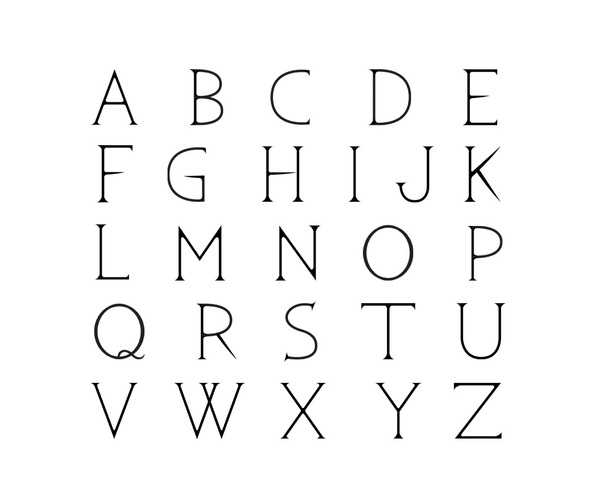
Octagonal typefaces | ||
Designer at FontStruct in 2008 of the blocky typefaces Fifteen Rounded, no15a and 15Square. [Google] [More] ⦿ | |
Typefaces from 2021: Aretha Bridge (a decorative serif), Aerobic (a decorative serif), Aristotle, Akashic, Celebrate (a display serif), Chaman (decorative), Conical Condensed, Coxxon (a logo font), Character with Text (textured), Digital Geometric, Gimbal Extended, Gramling, Hamachi (a decorative serif), Matiott (a display serif), Mclassic (stylish thin roman caps), Newton Howard, Ostrich Habitat (a display serif), Rothko Sans, Space (a futuristic speed font), Strarat (perhaps a horror font), String Beads, The Shouting, The Solstice, Theories (a tall modern sans), Travel (a modern display sans), Walting, Wind Creek (wind emulation), Cake Circle, Aremat (a rounded monolinear sans, perhaps a neon font), Urial, Gangitem (a ligature-rich serif), Roblox (futuristic), Selena Marin (a multi-width font), Wolf (octagonal), Amidala, Qaitan (a ligature-themed display serif), Raugi, Excellent (blackletter), Abington (sans), Aweber (an avant-garde sans), The Bangles (a vintage sans), Ohio (an all caps monolinear geometric sans), Mailyn, Celattin (a hipster sans), Landing, Soothing, Tommy. [Google] [More] ⦿ | |
24Design Studio
Typefaces from 2019: Madali, Lumiera, Mantra, American Label, Kida Main, Besty (font duo), Mellonia, Refaline Script, Eliotica, Chance, Lemonace (font duo), Reyonha Script, Mideltone, Prodush, Trushme Script, Wakeup, Sugarly, Rushely Script (retro signage script), Cromana, Arigatho (brush). Typefaces from 2020: Mideltone (textured), Maghnoyha (a monoline script), Wild Brush, Hotelio (a monoline sans), Roadkey Line (an inline all caps typeface), Sercerez (brush font), Collectials, Avekins, Cread, Gardenia, Glowria, Jenifa, Larrisan (a decorative serif), Light City, Millicious, Mindate, Mordova, Murner, Nobstars, Pittania, Rockside. Typefaces from 2021: Artmosfear, American Label (a Victorian label font), Asiatic (an inky script), Ballocs, Benhard (a vintage display font), Biorka Serif, Brith Brish, Chance (a squarish sans), Clowsh Esport, Catherina Script, Confillia (a clean sans), Focger Serif, Ganirus, Grimson (a signage script), Madtone, Monstario Serif (in the plump serif genre), Muve Serif (incised caps), Pancrack (a font for children), Redsans, Subaraya Retro Script. [Google] [MyFonts] [More] ⦿ |
24exp
| 24exp was the online portfolio of Buckinghamshire, UK-based freelance designer and art director Chris Henley. Some time alter, he set up Good and Brave in Milton Keynes, UK. Creator of the rounded octagonal typeface GAS (2012) and the 2d typeface Build Me Up and Knock Me Down (2013). Behance link. [Google] [More] ⦿ |
4RF Font (or: 4RM, or: Bantai)
| Ohman Ohman, or Arief Rochman, is an Indonesian type designer. His typefaces from 2020: the six-style sans simply called Bond (it was released a few weeks after Sean Connery died, so perhaps that explains the nomenclature) and the 18-style sans family Sanjeng. Typefaces from 2021: Cocomber (a stocky bold sans for big print), Terminator, Shasa (an 8-style serif), Didi (an 8-style sans), Mastral (an almost Peignotian sans), Fsfont (an almost Peignotian sans family), Agressiva (a bold rounded sans with exaggerated ink traps), Cocomate (a wide plump retro serif with elephant feet), Domina (a very wide sans), Blanknot (a wide all caps sans), Big Banks (a wide bold elliptical sans), Blanczo (a wide modular sans), Paradiz (an ultra-condensed all caps sans), Potato Sans (playful caps), Brink (all caps, techno), Speedy (a speed sans), Kenta, Aish, Avalons (a 12-style monolinear sans). Typefaces from 2022: Electroz (mechanical and octagonal), Arcens (a wide geometric sans), Monk (a wide poster sans), Beats (a sturdy all caps sans). [Google] [MyFonts] [More] ⦿ |
A2 Type
At ATypI 2013 in Amsterdam, he spoke about New Transport. Winner of the type design prize at the Tokyo Type Directors Club TDC 2019, with Matt Willey, for the New York Times Magazine Olympic font. [Google] [MyFonts] [More] ⦿ |
Graphic design student at the University of Creative Arts, Epsom, UK. Worthing, UK-based creator of the sans family Static (2010). MyFonts link to his foundry and to his persona. He designed the monoline octagonal typeface Exogenetic (2010). Behance link. MyFonts link. Klingspor link. [Google] [MyFonts] [More] ⦿ | |
Abas Creative
| Or Muhammad Farhan Sholeh Ramadhika. Jakarta, Indonesia-based designer of the script typefaces Done Perfectly (2019), Bad Hunters (brush style), Yeager Gang (2019), Veltloved Babyatta Script (2019: monoline), Natasha Amelia (2019), Densha (2019), Sayangable (2019) and Russland (2019). In 2020, he designed Bacalisties (script), Glittery (script), Galligra (a calligraphic brush), Sportviper (an octagonal varsity font), Aishiteiru Lover (script), Rellyan Charlotte (script), Aesthete (script), Herland (script), Hi Mellati (script), Fritlany (script), Rossatelly (script), Hessthicc (a dry brush script), Rock Bottom (script), Lesistar, Mastherikur, My Kids Handwritten, Done Perfectly, Hathem Bosteem, Violleva (script), Rybeth (script), Bad Hunter Brush, Veltloved, Korean Looks (Hangul emulation), Pixeboy. Fontdaily link. [Google] [More] ⦿ |
Lebanese designer who created Beantown (2004, an athletic lettering font), Staubach (2004, an athletic lettering typeface based on the lettering of the Dallas Cowboys), Wagner Modern (2011), Kroftsmann (2004, on octagonal face), Kavelry (2004, based on the Kemper Insurance logo), 4th and inches (2008, rounded octagonal; based on the proprietary font used by Russell Athletic, makers of sports apparel as used by Georgia Tech BKB, Washington State, Alabama State, Tennessee State, Mississippi Valley State, and many others in college football), and PopWarner (2004, a Bank Gothic lookalike), Wagner Zip Change (grotesque), Richardson Fancy Block. Creator of some free soccer team lettering alphabets in 2010: Louisville, Puff Script, Red Raiders, Richardson Fancy Block, Wagner Zip-Change (based on grotesque signage letters), ACMilan2009, ASRoma, ChampionsLeague, England2007, MLSUniform, RealMadrid2009. About his GeauxXPDF typeface (2010), he writes: I had extracted a nearly complete set on this one a few years back, except for J and Z which I created on my own. As best I can tell, it only exists as an upper case font without most punctuation, so I created that too to make it more useable. I don't know how much LSU [Louisiana State University] paid for this design, but to me it always looked like something that Larabie or Iconian would have given away. He also extracted HDRadioAlphabet from a rounded Arial typeface he found on HD radio. His UScoreRGK (2012) is a blocky angular font used on-screen by Fox Sports. LCD Display (2012) is a 28-segment LED font. UA Terrafont (2012) was based upon the vector art in this PDF file. In 2013, he published the athletic lettering family High School USA and the octagonal typeface UA Cadet. See also here. Dafont link. Fontspace link. Another URL. [Google] [More] ⦿ | |
Abdul Malik Wisnu
French graphic designer Abed Loutfi created the octagonal typeface Antec (2011), the honeycomb-inspired Mecanorganic (2011) and the piano key typeface Muse (2011). [Google] [More] ⦿ | |
During her studies at the University for the Creative Arts Farnham, UK, Abi Fuller designed the pattern-filled octagonal typeface Tribal (2014). [Google] [More] ⦿ | |
Abjad
In 2020, he co-designed Palsam Pro (Abjad) with Alja Herlah. This rounded sans typeface covers Latin and Arabic. Regarding Palsam Arabic, they write: The main highlight for Palsam was the cursive companion. For the first time, the calligraphic Ijaza style was used as a model for designing the Arabic cursive. The Ijaza is a hyper combination of Naskh and Thuluth, which makes it perfect to be a companion for the upright Naskh. Typefaces from 2021: Manchette Fine (an Arabic typeface), Manchette (an Arabic headline typeface that was inspired by the hand-written Naskh newspaper headlines during the 1960s and 1970s). Behance link. Klingspor link. Behance link for Abjad. [Google] [MyFonts] [More] ⦿ |
Abneurone Typografix (or: Abneurone Trauma Types, or: Neurone Error, or: Abneurone Fluid Types, or: Cirque Traumaccord)
Their first commercial fonts are ATT49 Fanfare, ATT48 Thrax, ATT47 Candies, ATT46 Exlixir, ATT45 Transfix, ATT44 X-Cute, ATT43 Small Proteus, ATT42 Childhook, ATT41 Arcane, ATT40 Lysergic4a, ATT39 Liquor, ATT38 Once Upon A Damned, ATT37 Innocence, ATT36 Kidding, ATT35 Bestiaire (2011), ATT34 Lysergic 2a (2011), ATT33 Koan (2011), ATT32 Faun Call (2011), ATT31 Paraphilia (2011), ATT30 Lysergic 1b (2011), ATT29 Mad Hatter (2011), ATT28 Minimori (2011), ATT27 Tripton (2011), ATT26 Lysrergic3a (2011), ATT25 Multicoloured Rythm (2011), ATT24 Swallow (2011), ATT23 Artlien (2011), ATT22 Dopamine (2011), ATT21 ABTOY (2011), ATT20 Rankle (2011), ATT19 Ink Lust (2011), ATT18 Overabundance (2011), ATT17 Ink Circus (2011), ATT16 The Orgians (2011), ATT15 For Whom The Bell Tolls (2011), ATT10 Stereo (2011), ATT11 Heterodoxa (2011), ATT12 Psilocybine (2011), ATT13 Sync (2011), ATT14 Prehisto (2011), ATT8 Human Decay (2011), ATT9 Eroded Eclosion (2011), AT4 Parallax (2011), ATT7 Medieval Sweet Shop (2011), ATT6 Detected Future (2011), ATT5 Hard Sync (2011), ATT4 Chalice (2011), ATT3 Outer Christ (2011), ATT2 Macpanic (2011), ATT1 Nimal Nimoy (2011), AT54 Intermezzo (2011), AT26 Metamorph Candies (2011), AT29 Dystrogonyx (2011), AG2 Placenta (2011), AT17 Farandole (2011), AT27 Innocence (2011), AT3 Nuclear Project (2011), AT38 Nanogonyx (2011), AT49 Neuromicr (2011), AT16 Faun Call (2011), AG1 Neuroticons (2011), AT55 Neo Geo (2011), AT36 Mad Hatter (2011), AT51 Pharmaceutic (2011) and AT5 Childhook (2011). The FontStruct production in 2011: 00dot 5 TRANSFIX, 00dot 15 DYSTROPHIE POLYGONALE, 00dot 20 CURSED, 00dot 13 PARALLAX, 00dot 12 NUCLEAR TARGET, 00dot_7_nimal_nimoy, 00dot 17 SYNDROME F.K., 00dot 9 NEW TO, 00dot 6 DECLINE AND CODE, 00dot 3 ROBOX, 00dot 2 MINIDECO, 0dot 26 INKSECTS, 00dot 32 STEREO, 00dot 10 SMART PLAYGROUND, 00dot 33 FUTURE NOW, 00dot 23 BLING STREET, 00dot 4 TOXINE, 00dot 31 FAUN CALL, 00dot 19 ELIXIR, 00dot 30 DWARF LOGIC, 00dot 8 THRAX, 00dot 14 A NEW FORM OF BEAUTY, 00dot 22 HETERODOXA, 00dot 27 KIDDING, 00dot 21 INNOCENCE, 00dot 34 PICTORIAL ABUSE, 00ne Stretched Empty Cow (2011, a piano key stencil face), 00ne Empty Cow (2011), 00ne Medication (2011), 00ne Pills, 00ne Minipills, 00ne Stency, 00ne Neurelm, 000tag6 LYSERGIC, 000tag4 ROBOX, 000tag NUCLEAR WARFARE, 00ne dat / dot, 00ne Bat Kidding (+Stencil, +Stencil Quadrillé), 00ne Stencirc, 00ne Neurocirc Neue Deco, 00ne Neurocirc, 00ne Neurologo, 00ne Nutech, 00ne Nutech Black, 00ne Top Pix (+Clean), 00ne Not So Atroce Pixels (+Black), 00ne Videotech, 00ne Videotech Tamagochi, 0One Bad Video, 0One Exagg Superstrong, 00ne Blockollida, 00ne Minicut, 00ne Neuromoog, 00ne Exagg, 00ne XChurch, 00ne NeuroNeoq, 00ne Imprimante Matricielle, 00ne C64 NeurOOpart2, 00ne Heterodoxa, 00neZnorg, 00ne Znorg Heads, 00ne Zwrappearing (dotted and textured), 00neVideotech, A Present for Intaglio (2011, cloned from Intaglio's Wallachia), Inicial 1 (2010, an improvement of a typeface by Infotipografia), Neo Geo (2011), NE XS, NE 4x4 Technirement, NE Religious Migraine, NE Abtechre. NE Churching, NE Strange Light Pax Pact, NE Cellphone Cutie Punched Cards, NE Cellphone Cutie, NE Obl. NE Pax Pact, NE Pictorial Abuse, NE Charlie Chaplin Cybernetic Brains, NE Chaplin Cyborg, NE Unknown Remix, NE Neurofat, NE Neurocompressor, NE Neurocompressed Pictograms, NE Alien Orders, NE Filament Techneriment, NE Strange Light Pax Pact, NE The Eye, NE Moving Parallels, NE Alien Orders, NE Reordered Alien Orders, the NE New Newbix family, Parallax (2011). Typefaces made in 2012 at FontStruct: AFT1 Heterodoxa, AFT2 Forbidden Apple, AFT3 Kidding, AFT4 Spacelab Parallax, AFT5 Detected Future, AFT6 Lysergic 2b, AFT7 Lysergic 2a, AFT8 Transfix, AFT8 Smart Kids, AFT10 Candies, AFT12 Neo Geo, AFT13 Arcane, AFT15 Hard Sync, AFT17 Cortech Hallucination, AFT18 Lysergic1b, AFT20 Abtech, AFT21 Bling Chief Story, AFT22 Ink Lust, AFT23 Faun Call, AFT24 Toying, AFT27 Fluffy Clown, AFT30 Koan, AFT31 Innocence, AFT33 ETPheuneHeume, AFT34 Neuromicr, AFT35 Tripton, AFT36 Intermezzo, AFT37 Rankle, AFT38 Dark Rankle, AFT39 Rankle Distone, AFT40 Smart Kids, AFT41 Smart Playground, AFT42 Lysergic 4a, AFT43 Small Proteus, AFT44 Lysergic 3a, AFT45 New Forgee, AFT46 Space Connect, AFT47 Mondrian Drone, AFT48 Bark At The Code, AFT49 Stereo, AFT50 Artlien, AFT51 Liquor, AFT52 Neuromecha, AFT53 Lysergic 1a, AFT54 Dinoxyde, AFT55 Human Decay, AFT56 Eroded Eclosion, AFT57 Outer Christ, AFT58 Boing Code, AFT59 Nimal Nimoy, AFT60 X-Church, AFT61 Macpanic, AFT62 Lovely Breeze, AFT63 Mad Hatter, AFT64 The Orgians, AFT65 Chalice, AFT66 Ssaammothrax, AFT67 Panthrax, AFT68 Less Is More Neuromicr 2, AFT69 Paraphilia, AFT70 Psilocybine, AFT71 Childhook, AFT72 Once Upon A Damned, AFT73 For Whom The Bell Tolls, AFT74 Medieval sweetshop, AFT75 Nanoprehistoryx, AFT76 Pictorial Abuse, AFT77 Bestiaire, AFT78 Fanfare From Outer Space, AFT79 X-Cute, AFT80 Medication, AFT81 Wrong DNA, AFT82 Wrong DNA, AFT83 Minimal Disto, AFT84 Abacadabra, AFT85 Pharmaceutical, AFT86 Code Flu, AFT89 High-Diving Blindness, AFT90 Nopix, AFT91 Floppy Disk O, AFT100 Farewell dawn, AFT104 Locked-in Glow, AFT105 Vivant, AFT106 Sharp Gloss, AFT107 Madame Guillotine, AFT108 Newbic, AFT109 Ataxie, AFT110 Strenuous MICR, AFT111 Effaceur, AFT113 Zeppelin Legacy, AFT1010 Jabbering, AFTN1, BUT1 Quarx, BUT2 Newbix, BUT3 Disto Matricielle, BUT4 Tomono, BUT5 Blurred Clown, BUT7 Religious Pill, BUT8 Nopix (octagonal), BUT9 Tipi Video, BUT10 Slanxic Acid, BUT11 Metamphetamental, BUT12 Znorgs, BUT13 Soyokaze, BUT15 Stick Tech, BUT16 Uninteresting Tech. In the Testament series from 2012 until 2013, we mention Testament 132 New Indication, Testament 131 The New Orgians, Testament 128 Camphre, Testament 126 Neuromoog, Testament 122 Dissecting Geometry, Testament 115 Placenta Numérique, Testament 116 Abnormal Fairy, Testament 109 Madame Guillotine, Testament 85 Axone, Testament 84 Keen, Testament 83 Minimixture, Testament 52 Neuromecha, Testament 51 Liquor, Testament 50 Artlien, Testament 49 Stereo, Testament 48 Bark At The Code, Testament 56 Eroded Eclosion, Testament 55 Lysergic 1a, Testament 54 Inflated, Testament 59 Nimal Nimoy, Testament 60 X-Church, Testament 64 The Orgians, Testament 67 Panthrax, Testament 66 Human Decay, Testament 69 Chalice, Testament 47 Mondrian Drone, Testament 44 Lysergic3a, Testament 42 Lysergic 4a, Testament 27 Arcane, Testament 11 Minimori, Testament 8 Transfix, Testament 7 Lysergic2a, Testament 6 Lysergic 2b [The Lysergic series is about very large (around 200 cases high) grid pixel fonts with a severe inclination to psychedelism], Testament B Formaldehyde, Testament C Neuroticons, Testament Artefact, Testament Back Home, Testament 1 Heterodoxa, and Testament 12 Neo Geo. He also created an Archive series in 2012, which features an ornamental caps typeface called Archive 10, a geometric typeface called Archive 5, TEST PPain, and a textured typeface called Archive 8. He has a Trauma series that features Trauma 145 Razzmatazz Architect, Trauma 126 Lysergeek Boy, Trauma 127 Lysergeek Girl. Typefaces from 2014: Trauma 155 Overly, Trauma 151 Migraine Bit. In 2017, Abneurone allowed me to host his 120-strong Abtox series, which grew out of the FontStruct collection between 2014 and 2016. Download directory. All fonts in one zip file. The complete list: Abtox 1 ATAXIE, Abtox 10 GRIEF, Abtox 100 CORRODED SPACESHIP_0, Abtox 101 LYSERGIC GAMMA_1, Abtox 102 TOXIC DATA, Abtox 103 NEUROTIC CHURCH_3, Abtox 104 SCHIZOPHRENIA TYPE_1, Abtox 105 TWO STAGES OF CONTAMINATION_2, Abtox 106 DINOXYDE_1, Abtox 107 FAUN CALL_0, Abtox 108 SMART KIDS_9, Abtox 109 FORBIDDEN APPLE_1, Abtox 11 SANTA CLAWS, Abtox 110 DYSTOPIAN GEOMETRY_0, Abtox 111 CHEMICAL ABERRATION_1, Abtox 112 DOUBLE-DEALING_3, Abtox 113 FORBIDDEN PLANET_4, Abtox 114 KARMIC_4, Abtox 115 DIZZY MOLECULES, Abtox 116 COMPUTING ELSEWHERE_0, Abtox 117 DEEP LOW_2, Abtox 118 MODULOTNIK, Abtox 119 DATACIDE_3, Abtox 12 CLOUD BLOOD, Abtox 120 CLOSE ENCOUNTERS_7, Abtox 13 CHILDHOOK_C, Abtox 14 BACTERIA_0, Abtox 15 ALCESTE_3, Abtox 16 PSILOCYBINE_1, Abtox 17 AXONE_1E, Abtox 18 GALACTIC ORGAN_0, Abtox 19 NEUROMOOG_1, Abtox 2 TANTRISME_1, Abtox 20 UFOLOGY, Abtox 21 PAIN PDJ_4, Abtox 22 MY VALENTINE_0, Abtox 23 SUCROKID, Abtox 24 FLOPPY DISK CODE, Abtox 25 VERKIDGO, Abtox 26 NEO GEO_1, Abtox 27 MANDRAGORE_F, Abtox 28 HORNS TO COME_1, Abtox 29 NITROX BEAT_7, Abtox 3 DECORATORIO, Abtox 30 FLYBUTTER_1, Abtox 31 MATRIX YELL_0, Abtox 32 BUBBLE GUMMY_A, Abtox 33 SPAWN_2, Abtox 34 SQUARRY_0, Abtox 35 BUBONIC AK47_0, Abtox 36 VINAIGRE GOTHIQUE_3, Abtox 37 NEO POMPOUS, Abtox 38 EFFACEUR GLUED_1, Abtox 39 EFFACEUR BAROQUE_8, Abtox 4 OVERLY_6, Abtox 40 EFFACEUR SOLID_3, Abtox 41 EFFACEUR CODA_5, Abtox 42 DARK ATROXID_1, Abtox 43 LUMINOUS ATROXID_9, Abtox 44 DRUGGED UP ATROXID_0, Abtox 45 NEUROMECHANIC, Abtox 46 CAMPHRE_4, Abtox 47 FEAST OF UNIQUE RITES, Abtox 48 CHALICE, Abtox 49 SPACE DRUG_0, Abtox 5 NEW PUPPY_0, Abtox 50 TRONIXHALLEY_1, Abtox 51 NO DUMMY, Abtox 52 LOST CHILDHOOD_1, Abtox 53 TRAUMATOLOGY_0, Abtox 54 THE NEW ORGIANS_7, Abtox 55 AMOEBA PUNK_2, Abtox 56 MEDICATION, Abtox 57 SIDE EFFECTS_3, Abtox 58 RE-VOLT_1, Abtox 59 CYBERNODE_1, Abtox 6 RAZZMATAZZ ARCHITECT_1, Abtox 60 OUTER CHRIST, Abtox 61 NEW CIRCUS_0, Abtox 62 ART DRONE, Abtox 63 COAXIAL_2, Abtox 64 PONG !_2, Abtox 65 LYSERGEEK GIRL_0, Abtox 66 NEWBIC_1, Abtox 67 BRAIN SURGERY_4, Abtox 68 RETROFUTURE PRECIOUS_0, Abtox 69 TRIPTONITE_2, Abtox 7 LOG_3, Abtox 70 NEUROMICR_8, Abtox 71 HUMAN DECAY, Abtox 72 INK LUST_0, Abtox 73 PANTHEIST_2, Abtox 74 X-CUTE_6, Abtox 75 DATAXY_4, Abtox 76 FRAGRANCE_0, Abtox 77 TOOTH AXIS_2, Abtox 78 MADAME GUILLOTINE_0, Abtox 79 NARCO_2, Abtox 8 KOAN, Abtox 80 GENOMETRY_1, Abtox 81 SAFE TRAIN_4, Abtox 82 NO ISLAND, Abtox 83 LOCKED-IN GLOW_5, Abtox 84 ABNORMAL FAIRY_A, Abtox 85 ACME_0, Abtox 86 GLITCHY ELIXIR_1, Abtox 87 BLACK ELIXIR, Abtox 88 NEW INDUCTION_0, Abtox 89 MECAMYTHIC_3, Abtox 9 ABSTEREO_4, Abtox 90 MEDIEVAL SWEETSHOP, Abtox 91 PARAPHILIA_0, Abtox 92 HARD SYNC_3, Abtox 93 SECT TOY_1, Abtox 94 ARTEFACT_2, Abtox 95 SPACE LAB, Abtox 96 WAX, Abtox 97 E.T. PHEUNE HEUME_C, Abtox 98 COLD FLOWERS_2, Abtox 99 INJECTING DOPAMINE_0, Abtox ALIEN TOYS_14, Abtox NEUROTICONS_13, Abtox X-HEADZ_37. Dafont link. [Google] [MyFonts] [More] ⦿ |
Palma de Mallorca-based creator of a nice typographic collection of posters entitled Carteles Leo Bassi (2011), which mix the Western circus poster style and art nouveau elements. Typefaces created by er include the paper cut typeface Diplodocus (2011), and the octagonal typeface That Tune (2012). View her Y Modaba poster (2011). [Google] [More] ⦿ | |
For a school project, Allie Welch (Lawrence, KS) created an octagonal futusistic typeface in 2013 called Spacegirl. [Google] [More] ⦿ | |
Allison James
Almarkha Type